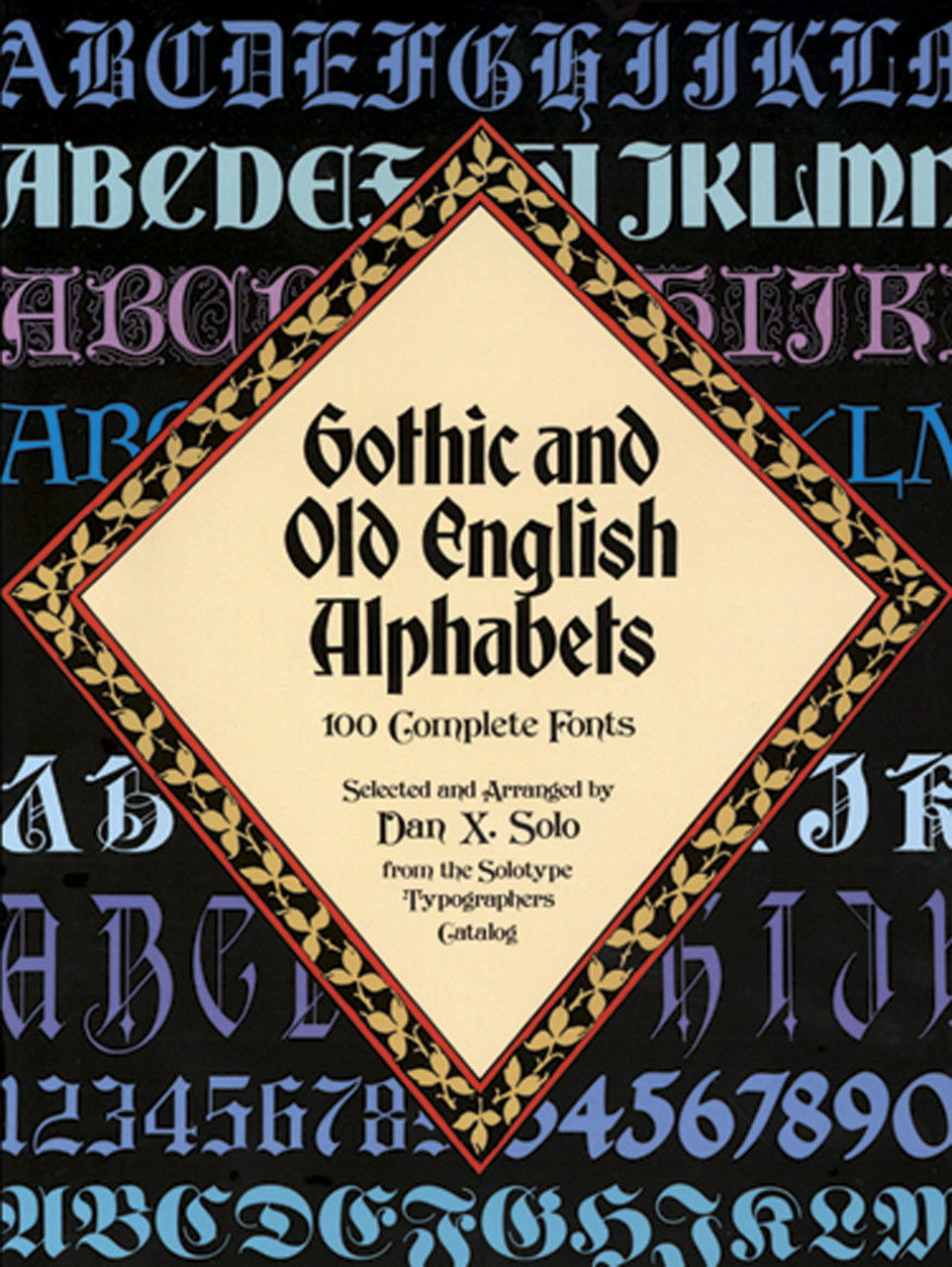
Gothic and Old English Alphabets (100 Complete Fonts)
Gothic or black-letter script, practiced by many medieval scribes, was a principal model for printer's type when printing was first invented. Characteristic thick strokes and stress on points and angles give the style a power and dignity that transcends the temporal.
Noted typographer and printing historian Dan X. Solo presents an impressive collection of 100 complete fonts of Old English and Gothic typefaces, derived from the immensely influential black-letter style. Choose from such classic type styles as: Abbey English, Alte Schwabacher, Blackstone, Caxton Initials, Dolbey, Engraver's Old English, Germania, Goudy Medieval, Lautenbach Initials, Munich Fraktur, Old Gothic Initials, Trump Deutsch, and 88 others.